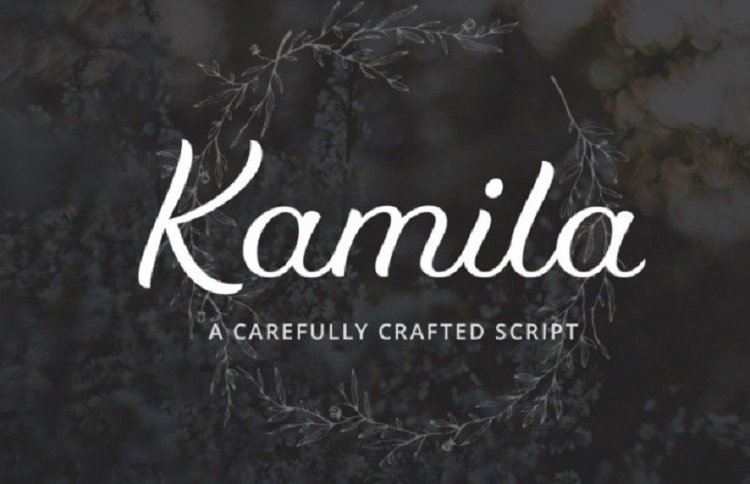
Kamila Script Font
Kamila Script Font is a connected script typeface with an elegant feel. It is based on custom lettering and works well in all letter combinations in a harmonious way.
This typeface has over 900 glyphs and includes 6 sets of stylistic alternates with swashed letters, standard ligatures, ornaments and other alternates for more versatility. Kamila is suited for most latin languages both in its basic and alternate letterforms.